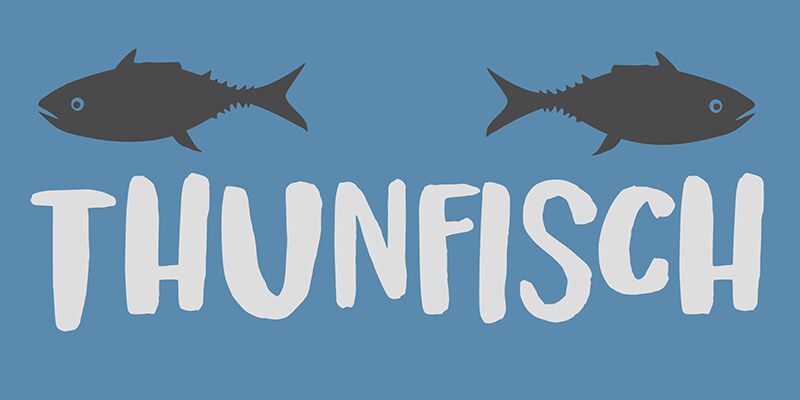
Thunfisch DEMO Regular
Thunfisch font by Hanoded is a bold brush display font with rounded corners that soften its overall appearance. The hand-drawn style created by its artist is combined with the casual mood and slightly irregular shapes of the characters for an overall outstanding text visual. Thunfisch has a touch of retro that works perfectly even with contemporary uses.
Use this free display font in organic product packages, recipes, children’s books and magazine covers, comic books, stationery designs, or branding projects. It beautifully supports illustrations and painted artwork as well as artists’ personal blogs or social media accounts with fun and relaxed visuals!